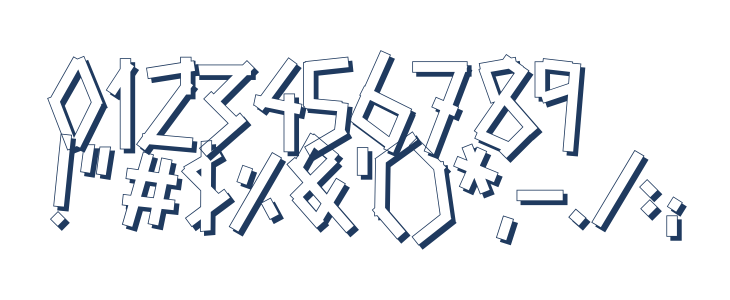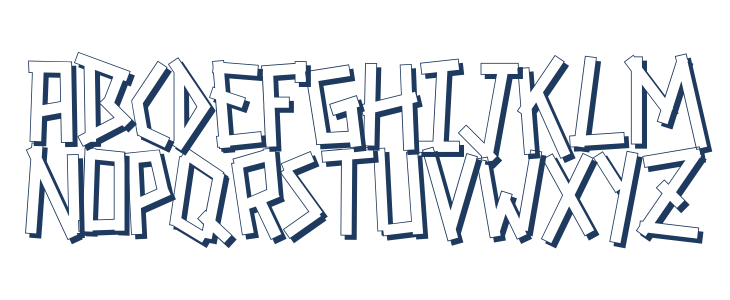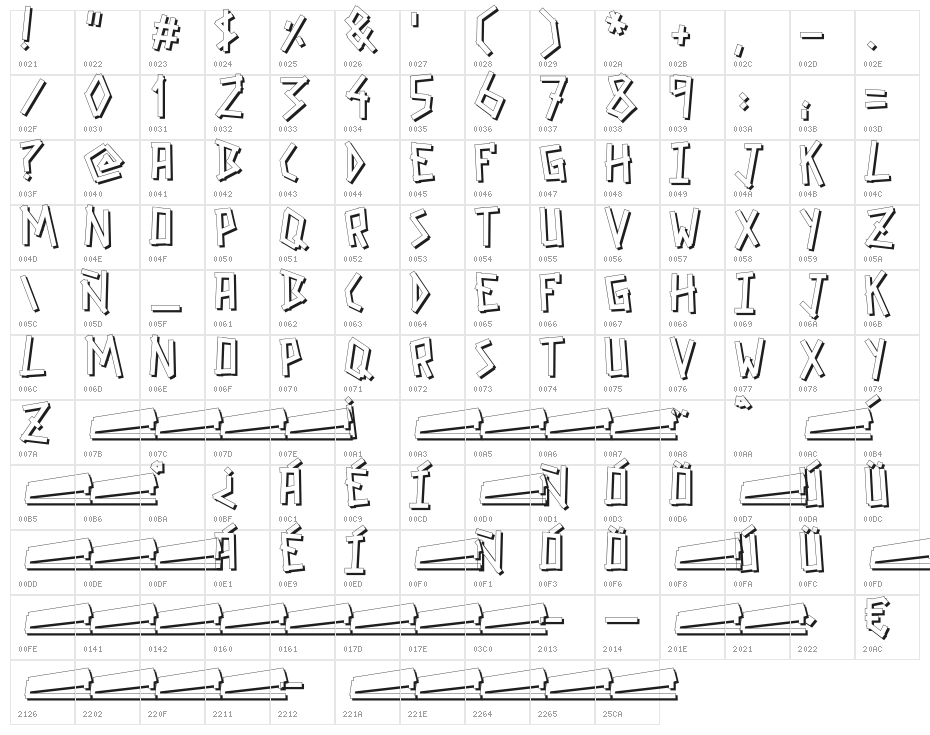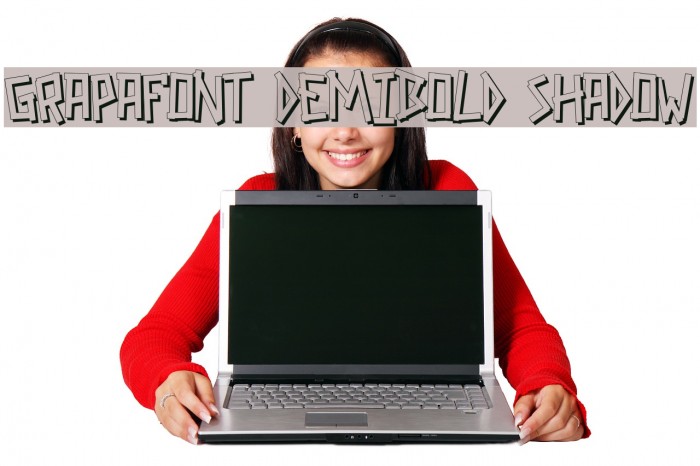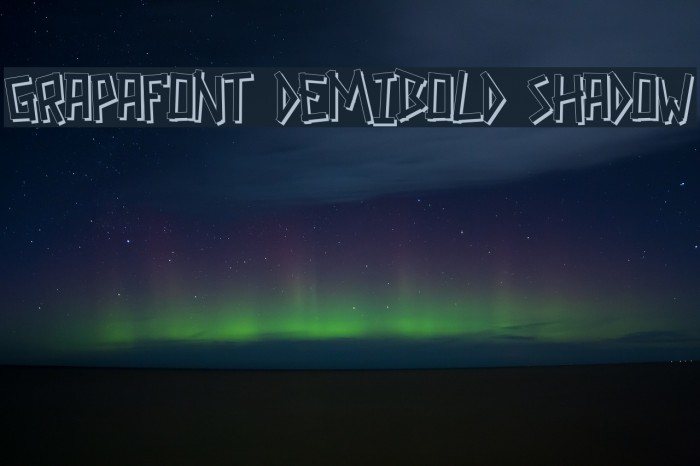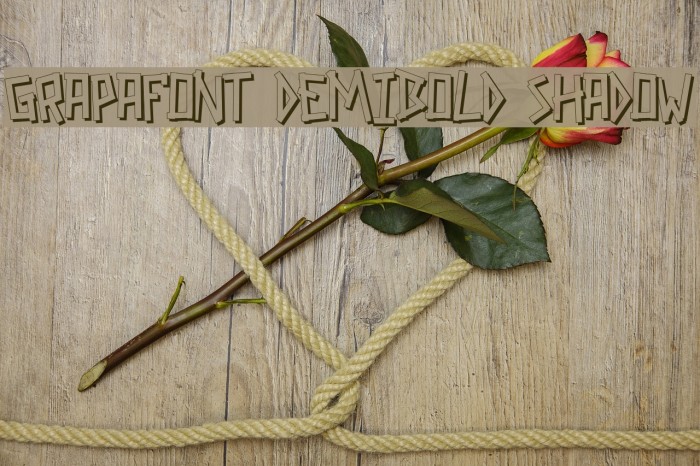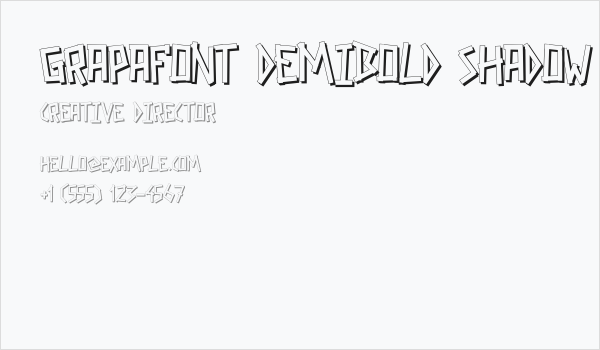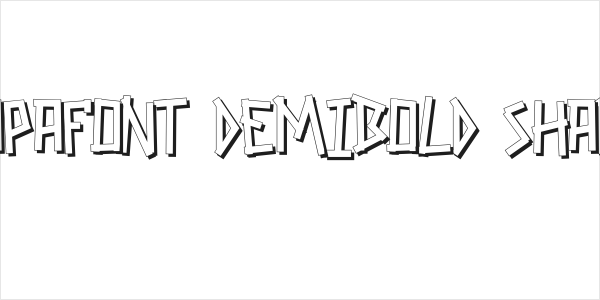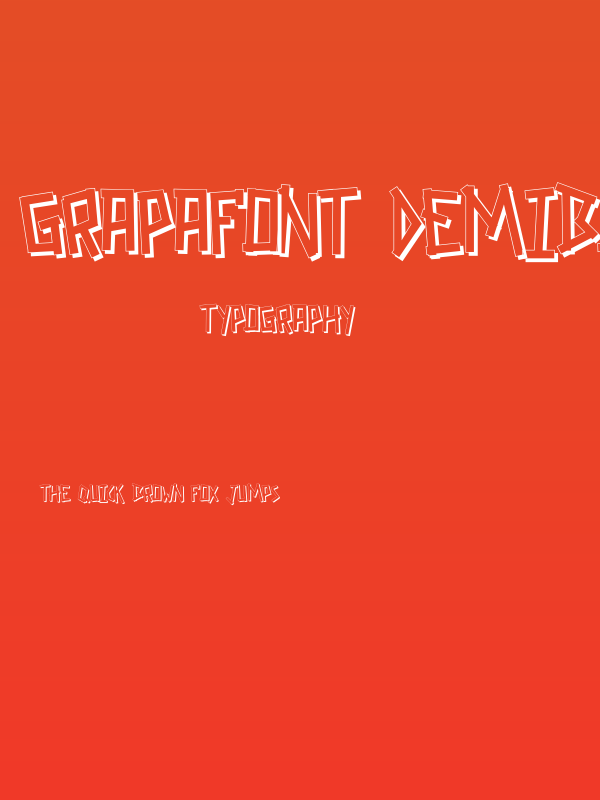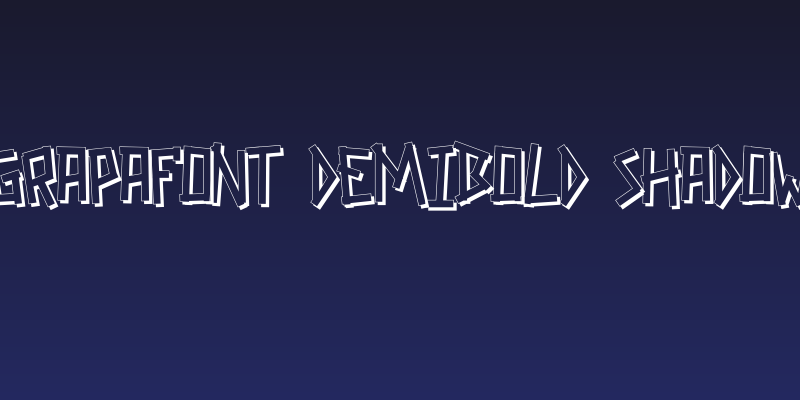
GRAPAFONT DemiBold shadow Font
This font features a bold, dynamic style with a three-dimensional shadow effect that gives each character a sense of depth and movement. The letters are angular and geometric, with sharp edges and a playful, graffiti-like appearance. The shadowing adds a layer of complexity, making the font stand out and catch the eye. It is suitable for projects that require a modern and edgy look, such as posters, logos, and headlines. The font's unique style makes it ideal for creative and artistic designs, where a strong visual impact is desired.
Proposed ProjectsIdeal for posters, logos, headlines, and creative projects requiring a strong visual impact.